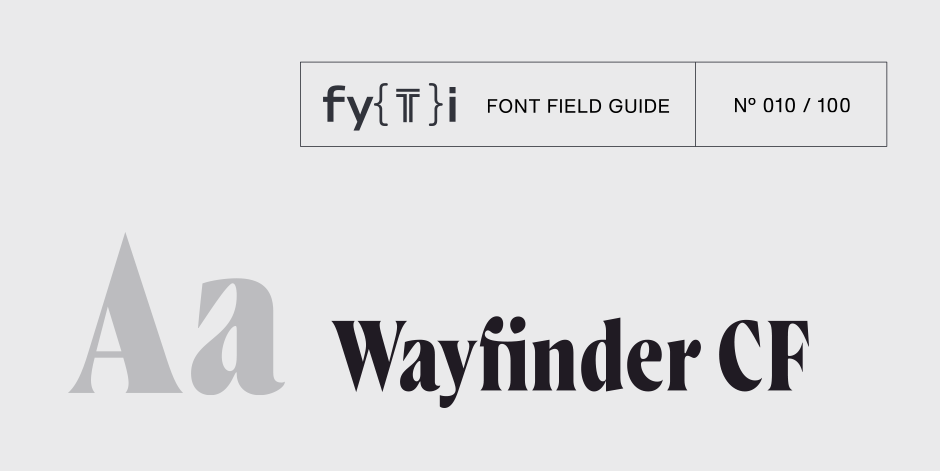
Wayfinder CF Font Field Guide
Best Practices
As a display typeface with fine details, Wayfinder CF is best used at large sizes in print, digital, and film. Ideal use cases include short texts headlines and posters — Wayfinder is especially stunning in print – titles, logos, album artwork, signage, fine art, and more. At home in both traditional and avant-garde design, Wayfinder can hold its own in any setting. A set of alternate glyphs and optional swashes add versatility and flair.
Family
Seven weights of roman designs, each with a complementary italic, for a total of 14 styles.
Font Facts
• Wayfinder went through a large number of names during the design process, many inspired by nature and myth; Halcyon, Swift, and Coronet were among the contenders.
• Though italics are used less in display type than in body copy, a full set was designed for Wayfinder to offer more versatility and expression.
Roots
Wayfinder CF is an original design by Connary Fagen, designed in 2019 with an eye towards incorporating a great deal of emotion and verve into a typeface. After creating several typefaces for high legibility, neutrality and versatility – Articulat CF and Artifex CF, for example – Wayfinder was made to highlight and accompany feelings of adventure, romance, and play.
Legibility
Wayfinder CF is a high-contrast display typeface and is most legible in short texts at high point sizes. Though readable at any size, its fine details excel when set large.
How to spot Wayfinder CF